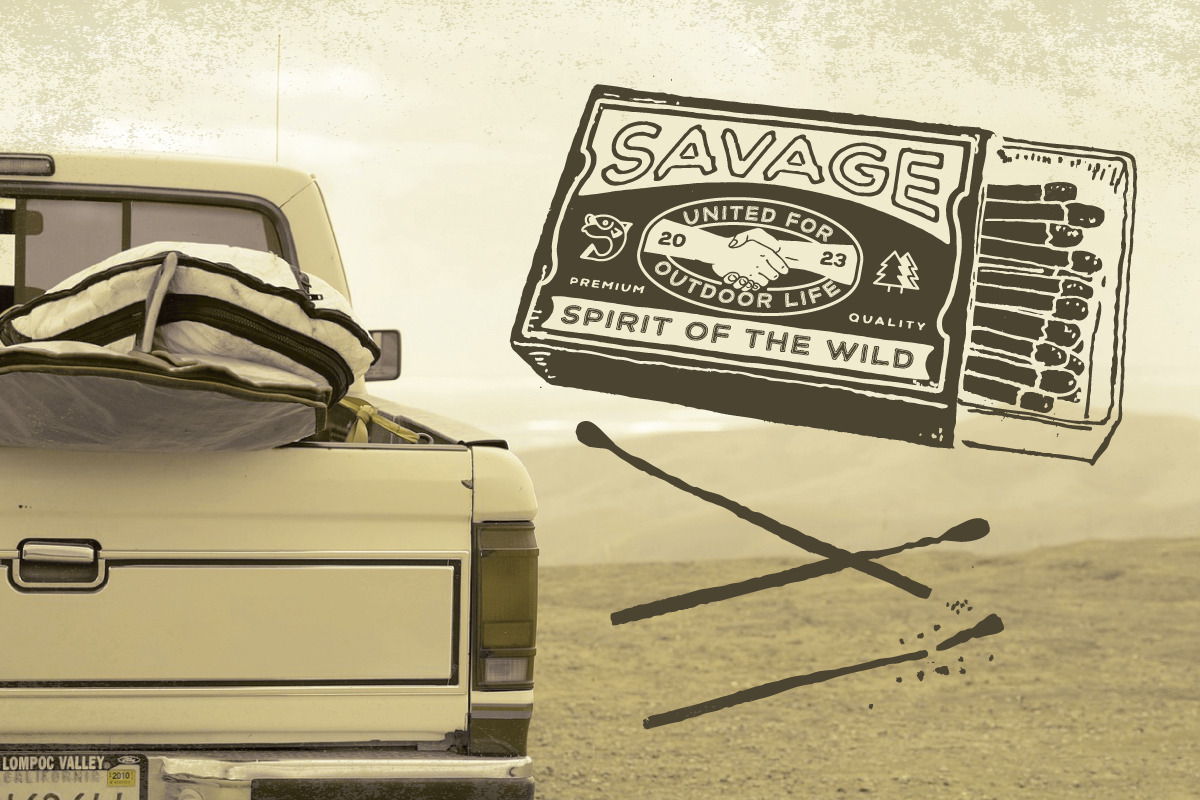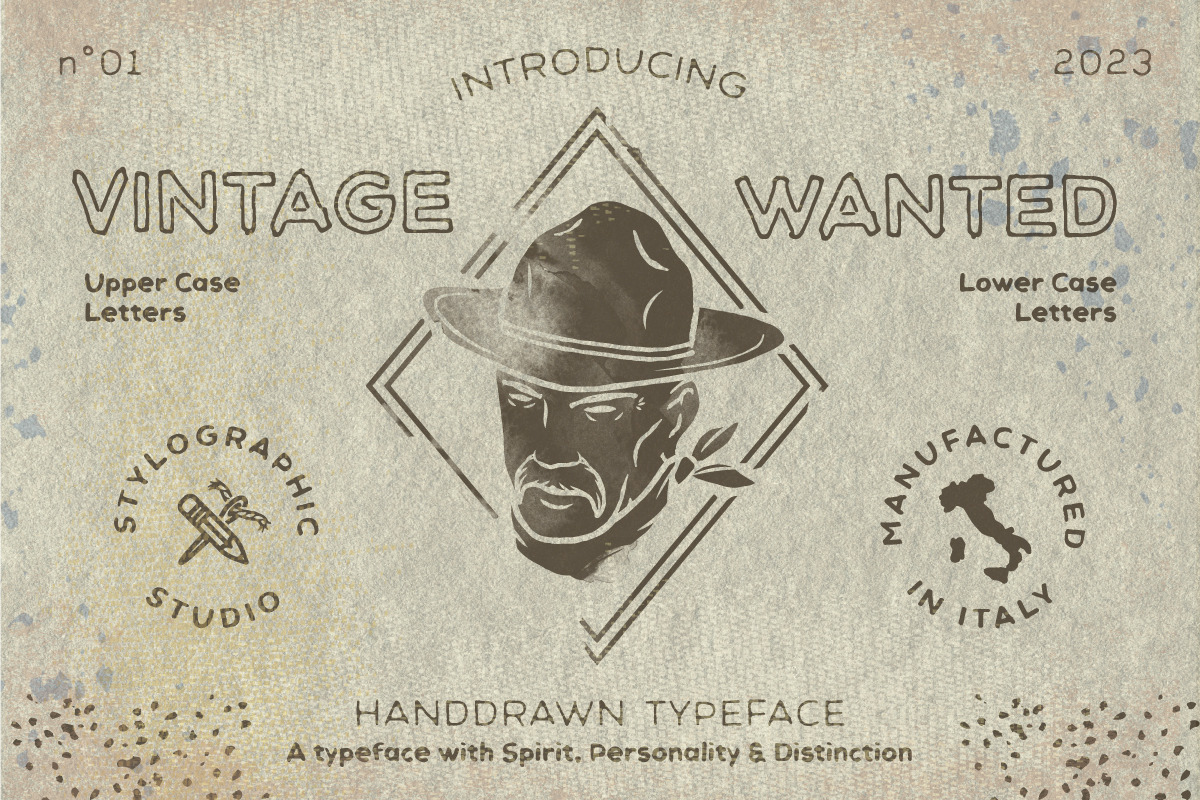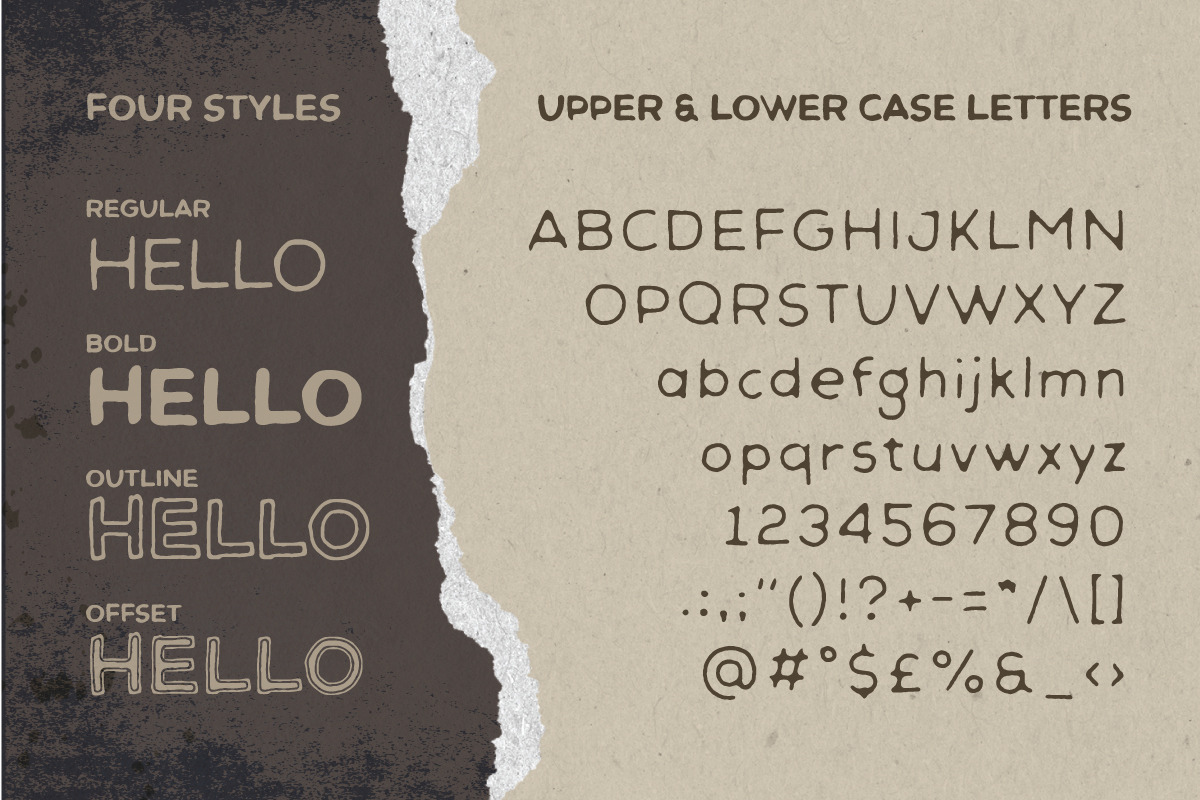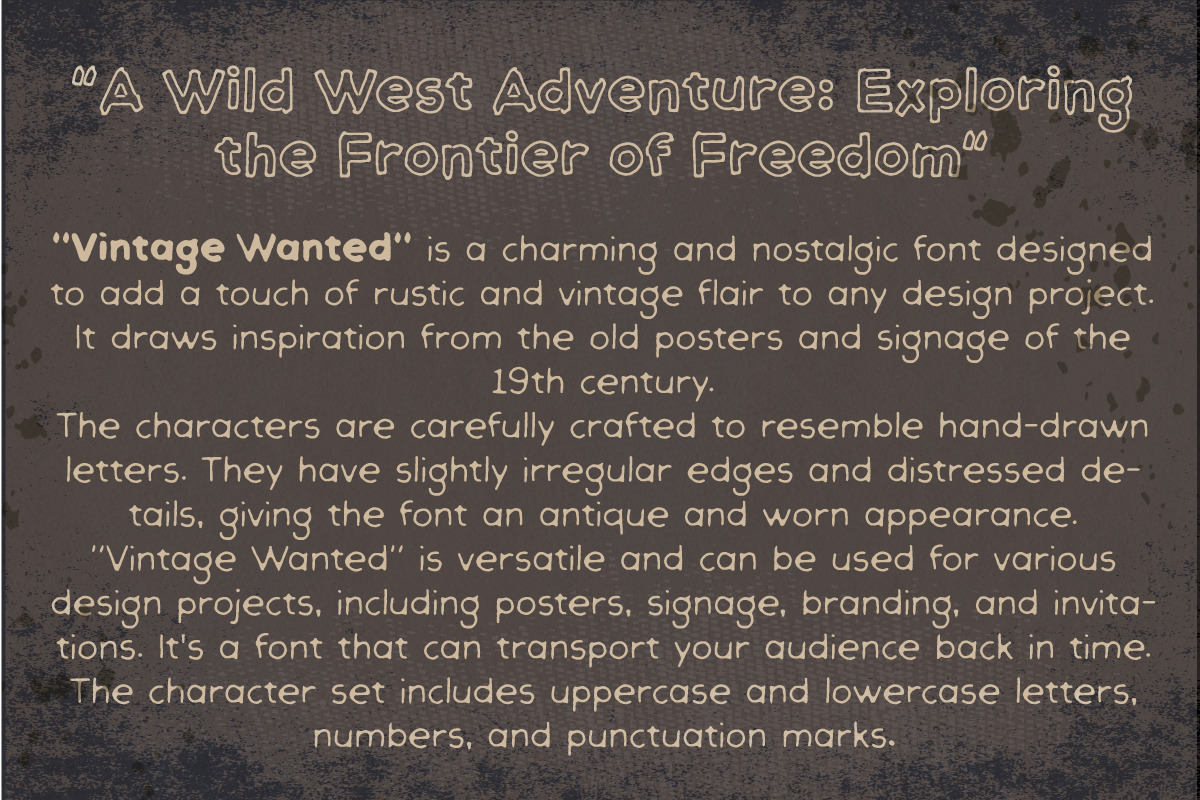
Vintage wanted Font hand-drawn style
"Vintage Wanted" is a charming and nostalgic font designed to add a touch of rustic and vintage flair to any design project. It draws inspiration from the old posters and signage of the 19th century. The characters are carefully crafted to resemble hand-drawn letters. They have slightly irregular edges and distressed details, giving the font an antique and worn appearance. "Vintage Wanted" is versatile and can be used for various design projects, including posters, signage, branding, and invitations. It's a font that can transport your audience back in time. The character set includes uppercase and lowercase letters, numbers, and punctuation marks.